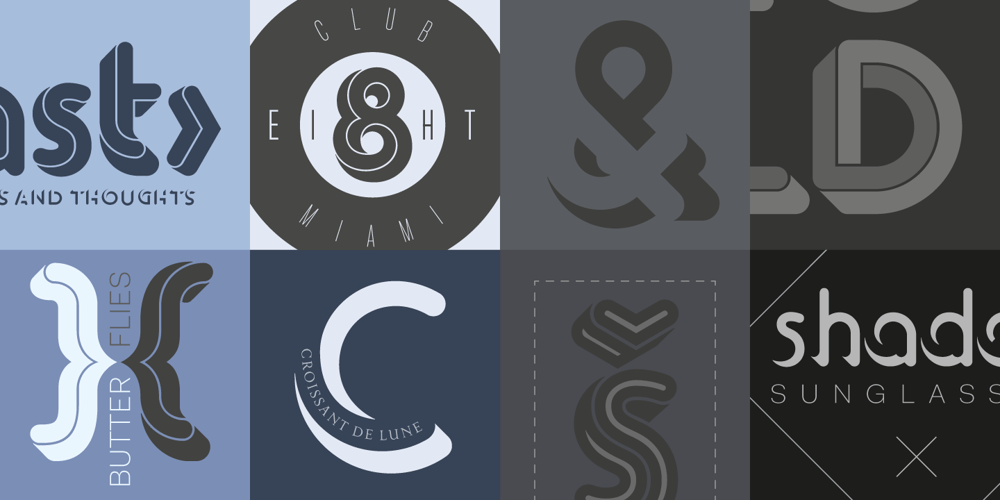
Bron Font Family was designed by Bronislaw Zelek, Jeremia Adatte and published by Jeremia Adatte. Bron contains 3 styles and family package options. Bron is based on Zelek, designed in the 70s by Polish type designer Bronisław Zelek. This typeface was originally made for dry transfer lettering sheets. It has been drawn following the principles of impossible geometry and is derived from simple geometric forms (perfect circles, triangles and squares). It has been carefully redrawn and updated and is now available for contemporary technology and design. Use Bron’s rounded and smooth optical shapes in your headlines, logos, packagings, posters to instantly attract attention. This style offers two separate layered fonts to make your own awesome two color compositions. These can be used separately to create even more subtle effects. Bron is packed with an extended character set, supporting Central, Western and Eastern European languages. Check its semi-outline version here!